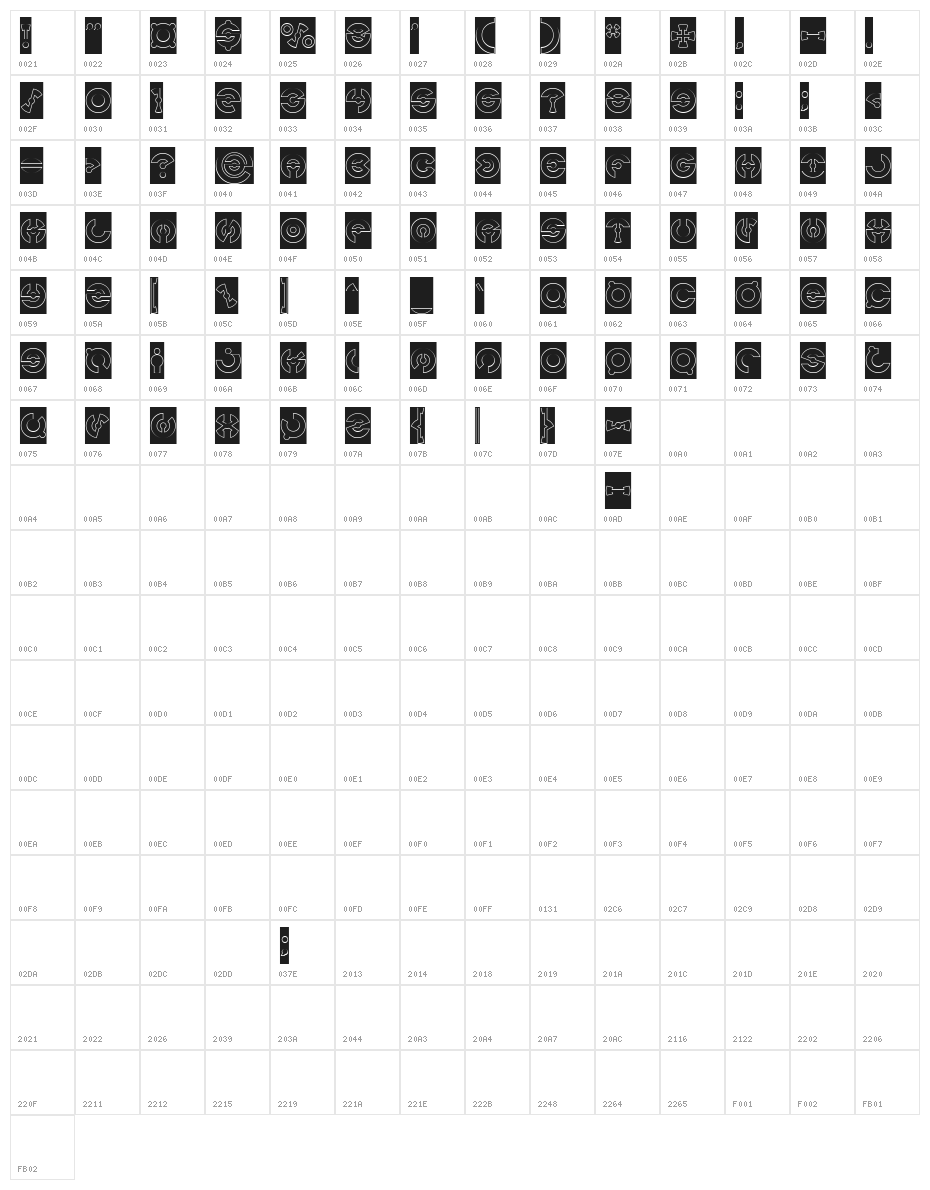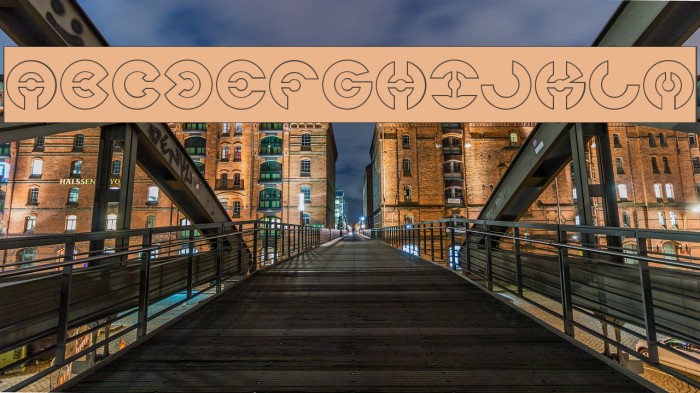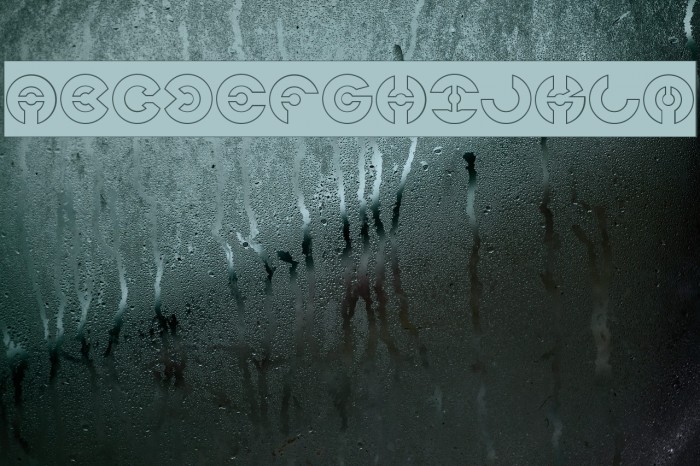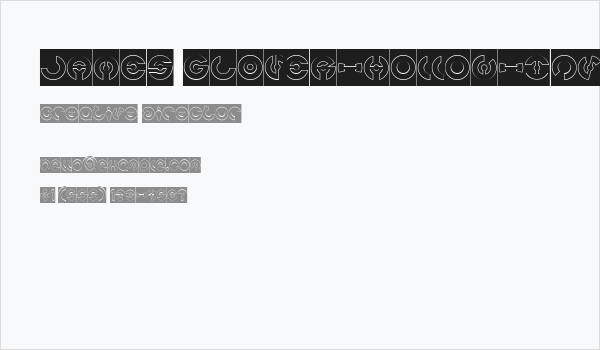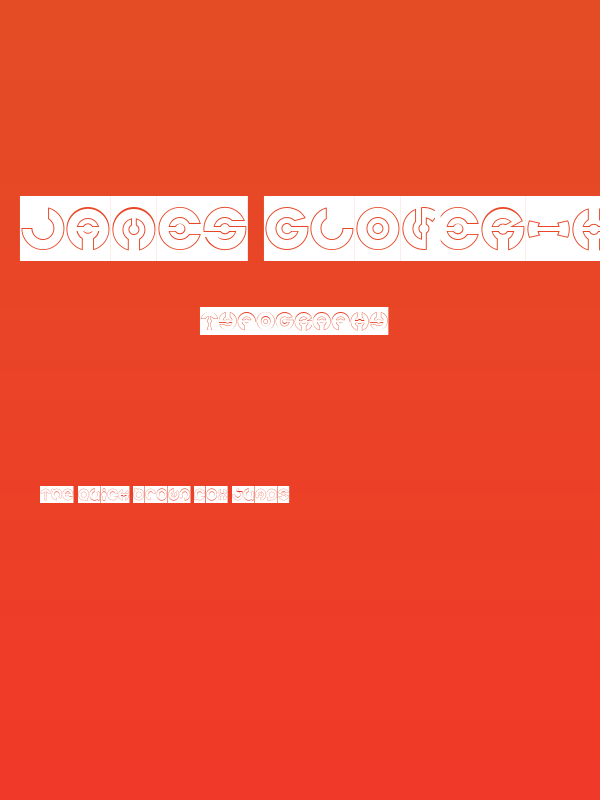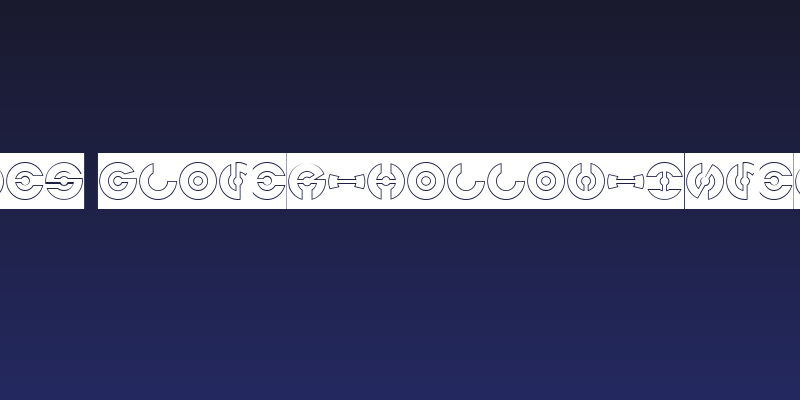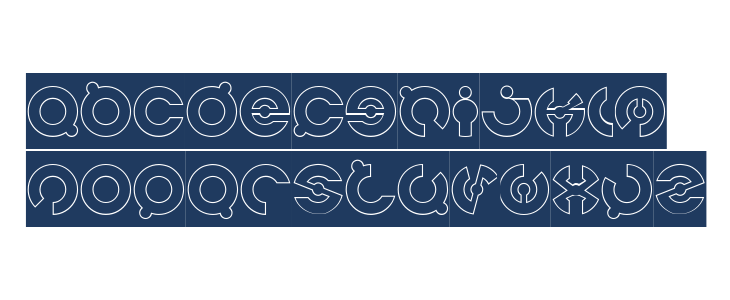
JAMES GLOVER-Hollow-Inverse Font
| Progetti proposti | Ideal for branding, posters, album covers, and digital media projects that require a bold and modern aesthetic. |